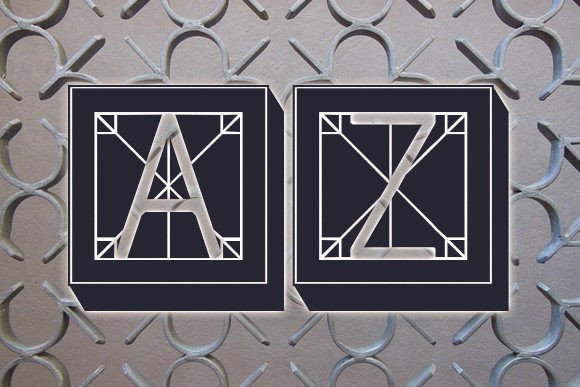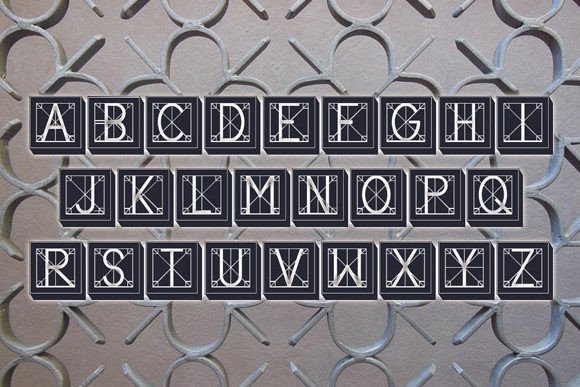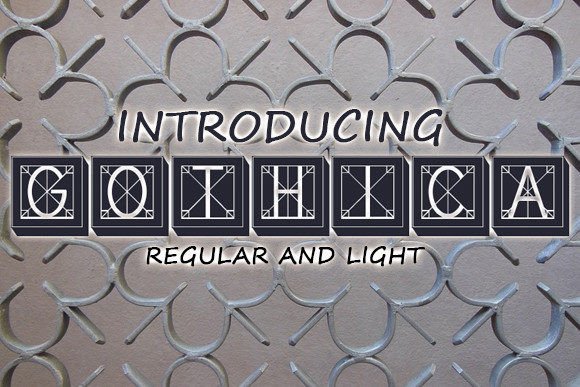
Gothica Font: Elevate Your Designs with Elegance and Sophistication
In the realm of typography, few fonts capture the essence of luxury and refinement as effortlessly as the Gothica font. This extravagant initials font has been making waves in the design community, and for good reason. Its unique blend of classic elegance and modern sophistication makes it an ideal choice for designers looking to add a touch of glamour to their work. Whether you’re crafting posters, flyers, t-shirts, or any other design project, Gothica is sure to make a lasting impression.
What is Gothica Font?
Gothica is a meticulously crafted font that exudes opulence and refinement. Its intricate details and ornate flourishes evoke a sense of luxury, making it perfect for high-end designs. The font’s unique character set includes a range of initials, numbers, and punctuation marks, allowing designers to create stunning text-based designs that command attention.
Key Features of Gothica Font
- Extravagant Initials: Gothica’s initial letters are truly breathtaking, with intricate details and ornate flourishes that add a touch of luxury to any design.
- Versatile: This font is perfect for a wide range of design applications, from posters and flyers to t-shirts and other merchandise.
- Elegant and Sophisticated: Gothica’s classic elegance and modern sophistication make it an ideal choice for designers looking to create high-end designs.
- Easy to Use: Gothica is a straightforward font to use, even for designers who are new to working with intricate typography.
How to Use Gothica Font in Your Designs
One of the best things about Gothica is its versatility. Here are a few ways you can incorporate this stunning font into your designs:
- Posters: Use Gothica to create eye-catching posters that showcase your brand’s personality and style.
- Flyers: Add a touch of elegance to your flyers with Gothica’s ornate initials and sophisticated typography.
- T-Shirts: Create stunning t-shirt designs that feature Gothica’s intricate details and luxurious feel.
- Branding: Use Gothica to create a cohesive brand identity that exudes luxury and refinement.
Tips for Getting the Most Out of Gothica Font
To truly get the most out of Gothica, here are a few tips to keep in mind:
- Experiment with Colors: Gothica looks stunning in a range of colors, from metallic gold and silver to rich jewel tones.
- Play with Texture: Add depth and interest to your designs by incorporating texture and patterns into your work.
- Mix and Match: Don’t be afraid to combine Gothica with other fonts to create a unique and eye-catching design.
In conclusion, Gothica font is a game-changer for designers looking to add a touch of luxury and sophistication to their work. Its extravagant initials, elegant typography, and versatility make it an ideal choice for a wide range of design applications. Whether you’re a seasoned pro or just starting out, Gothica is sure to elevate your designs and leave a lasting impression on your audience.